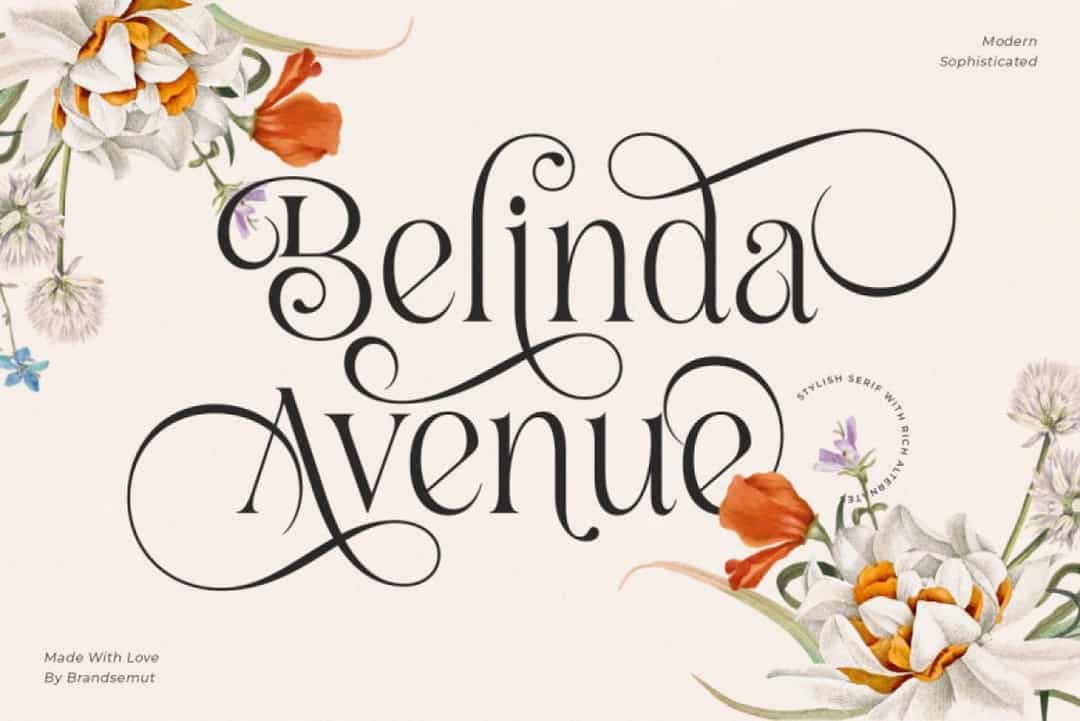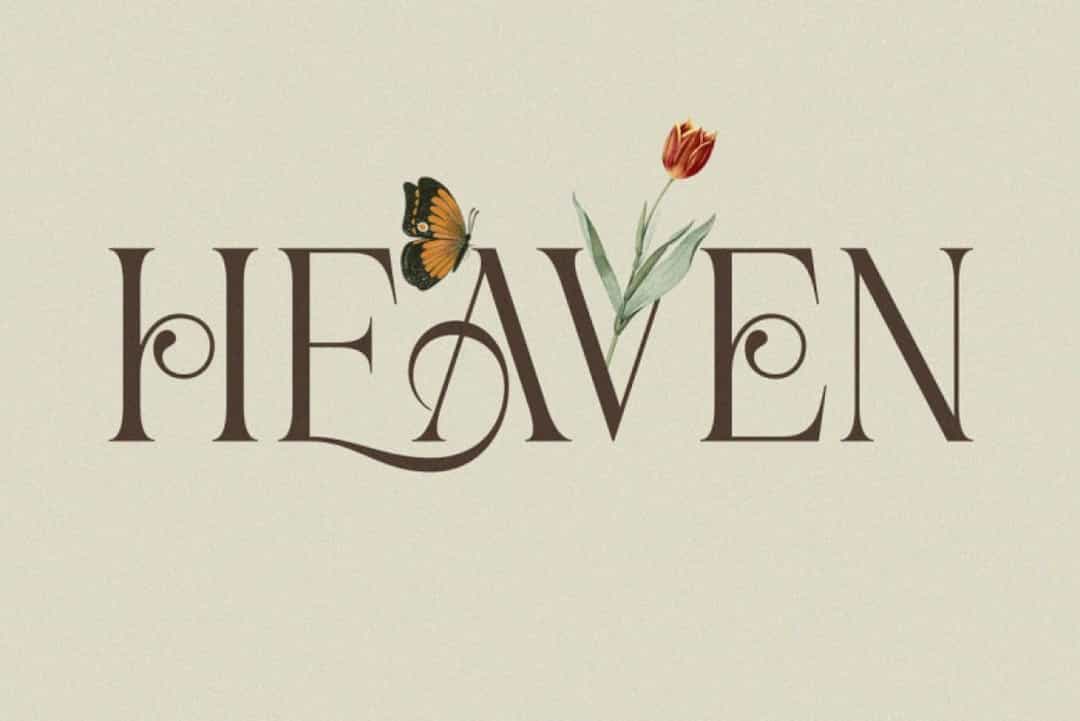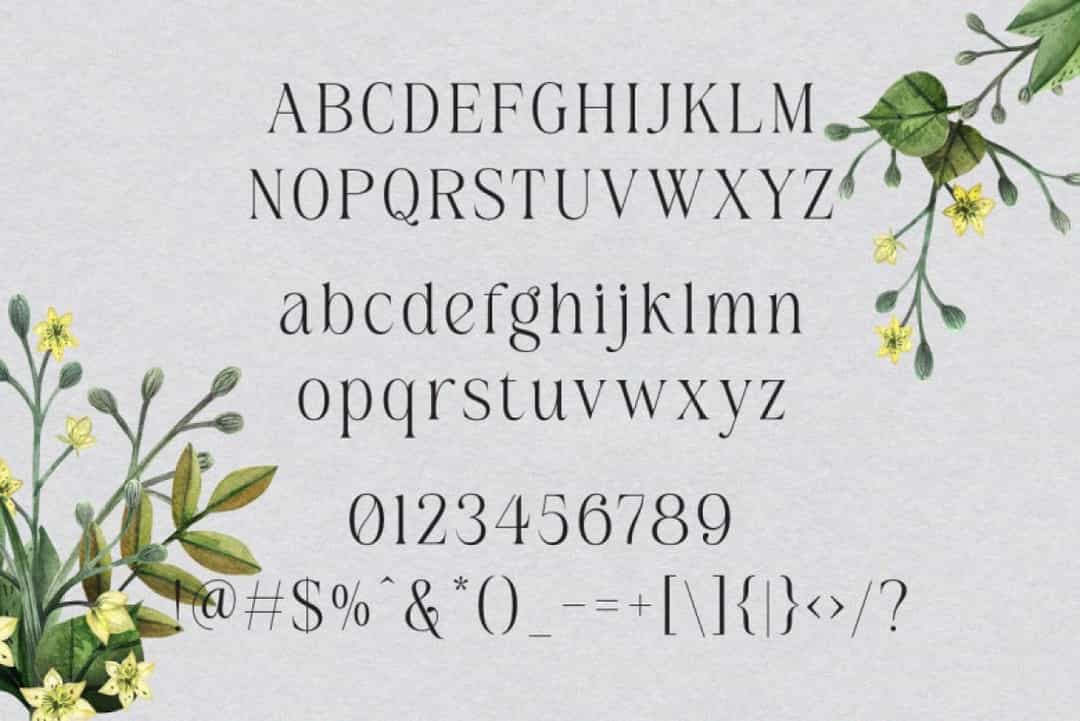
Discover Belinda Avenue Font, part of the Serif collection—a versatile and unique font perfect for adding a personal touch to your projects. Download it for free and enjoy crafting designs with style, from invitations to social media posts. This font is available exclusively for personal use, giving you the freedom to create without limits. Unlock your creativity with Belinda Avenue Font today!
Belinda Avenue is an elegant and stylis-style display serif typeface with rich stylistic variations, ideal for display purposes like branding, headings, logos magazines packaging for products invitations.